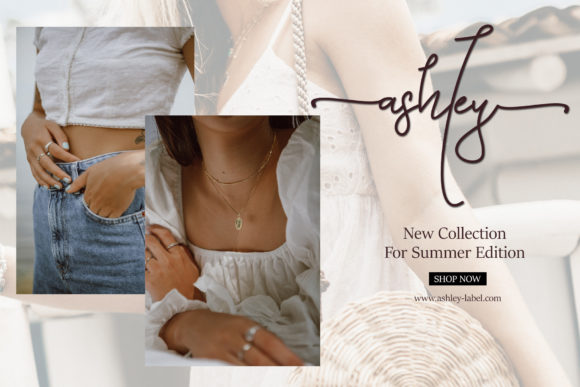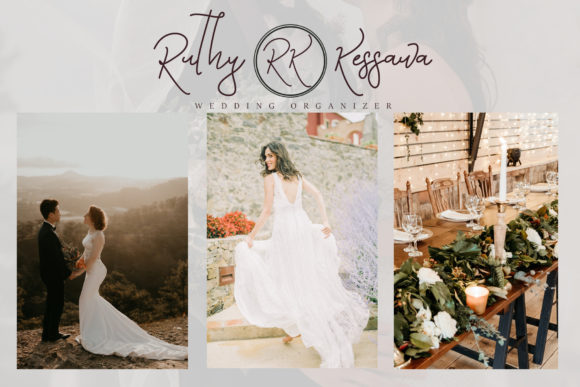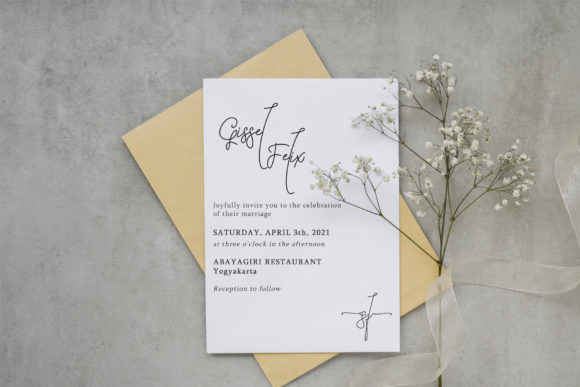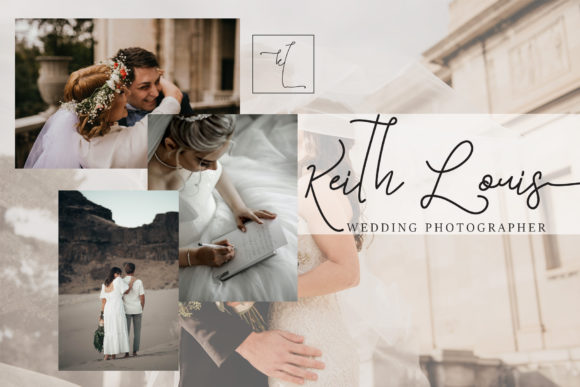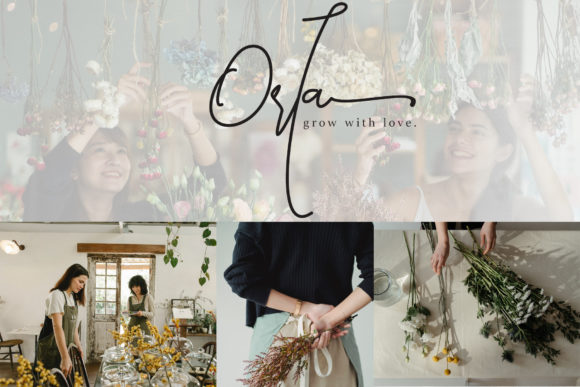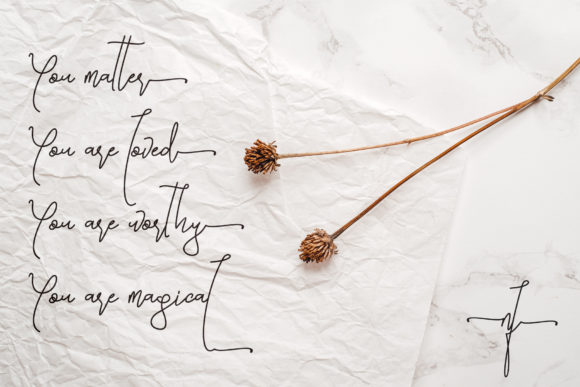
Aurellie Font: The Sweet and Elegant Script Font for Your Designs
Are you looking for a font that can add a touch of personality and elegance to your designs? Look no further than Aurellie Font, a beautiful and cursive script font that is perfect for a wide range of design projects. In this article, we’ll take a closer look at Aurellie Font, its features, and how you can use it to take your designs to the next level.
What is Aurellie Font?
Aurellie Font is a sweet and cursive script font that is designed to add a personalized touch to your designs. Its elegant and flowing lines make it perfect for use in a variety of design projects, from wedding invitations and stationery to branding and packaging. Whether you’re a designer, crafter, or DIY enthusiast, Aurellie Font is a great choice for anyone looking to add a touch of sophistication and elegance to their work.
Key Features of Aurellie Font
So, what makes Aurellie Font so special? Here are just a few of its key features:
- Sweet and Cursive Design: Aurellie Font has a beautiful, cursive design that is perfect for adding a touch of elegance and sophistication to your designs.
- PUA Encoded: Aurellie Font is PUA (Private Use Area) encoded, which means that you can access all of the glyphs and swashes with ease. This makes it easy to customize your designs and add your own personal touch.
- Ravishing on Every Design: Aurellie Font looks great on every design, from digital projects to print materials. Its versatility makes it a great choice for a wide range of design applications.
How to Use Aurellie Font in Your Designs
Using Aurellie Font in your designs is easy. Here are a few tips to get you started:
- Pair it with Other Fonts: Aurellie Font looks great when paired with other fonts. Try pairing it with a bold, sans-serif font for a striking contrast.
- Use it for Headings and Titles: Aurellie Font is perfect for use in headings and titles. Its elegant design makes it a great choice for adding a touch of sophistication to your designs.
- Add Swashes and Glyphs: Aurellie Font’s PUA encoding makes it easy to add swashes and glyphs to your designs. Use these to add a personal touch and make your designs stand out.
Why Designers and Crafters Love Aurellie Font
So, why do designers and crafters love Aurellie Font? Here are just a few reasons:
- Elegant Design: Aurellie Font has an elegant design that is perfect for adding a touch of sophistication to designs.
- Versatility: Aurellie Font is versatile and can be used in a wide range of design applications, from digital projects to print materials.
- Easy to Use: Aurellie Font is easy to use, even for those with limited design experience. Its PUA encoding makes it easy to access all of the glyphs and swashes.
In conclusion, Aurellie Font is a beautiful and elegant script font that is perfect for designers and crafters looking to add a touch of sophistication to their designs. Its sweet and cursive design, PUA encoding, and versatility make it a great choice for a wide range of design projects. Whether you’re creating wedding invitations, branding materials, or digital projects, Aurellie Font is a great choice. So why not give it a try and see how it can elevate your designs?